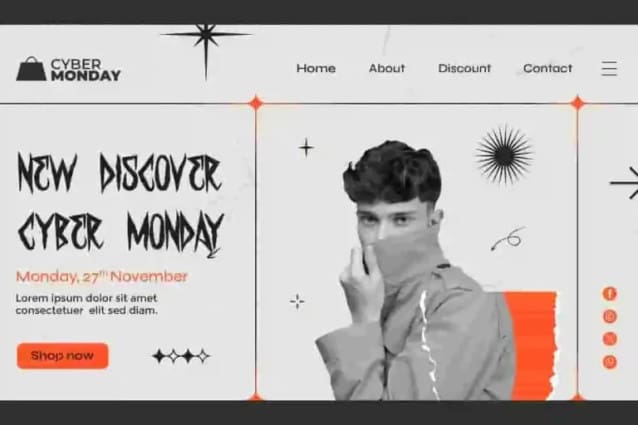
Gorkles Font
Gorkles Font is a playful horror Black Metal font by NoahType. This font has a special look of scary character with long sides and corners so that it can dominate the design. It will be awesome for any designs, such as custom design, brand image, poster, label, invitation, cover, marketing material, menu, printing, product packaging, quotes, signage, website, and many more!